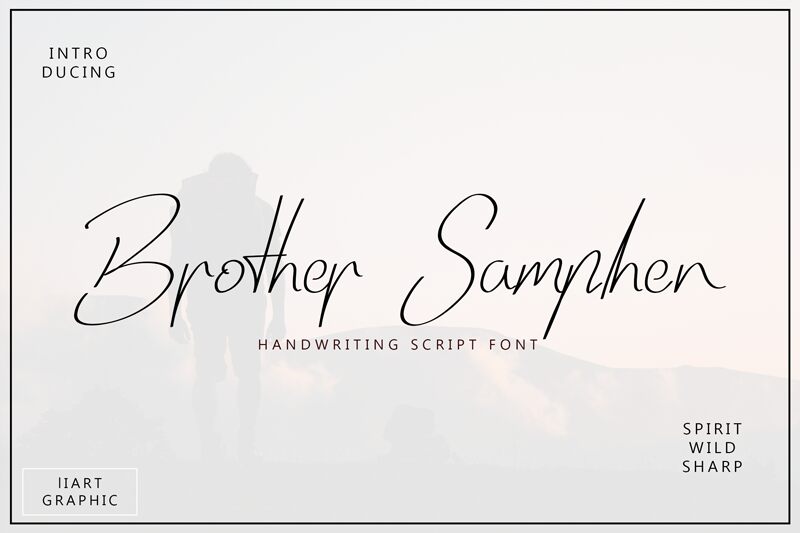
Brother Samphen
Brother Samphen is a charming handwritten font designed by liartgraphic. This extra-light typeface delivers a delightful, playful vibe that will bring your creative projects to life. The Brother Samphen font is perfect for a variety of projects, including invitations, greeting cards, social media graphics, and more. Its unique style gives off a personal touch that draws the viewer in and keeps them engaged. Whether you're designing for personal or professional use, Brother Samphen adds an element of fun and creativity to your work. This font will surely help you stand out from the crowd!